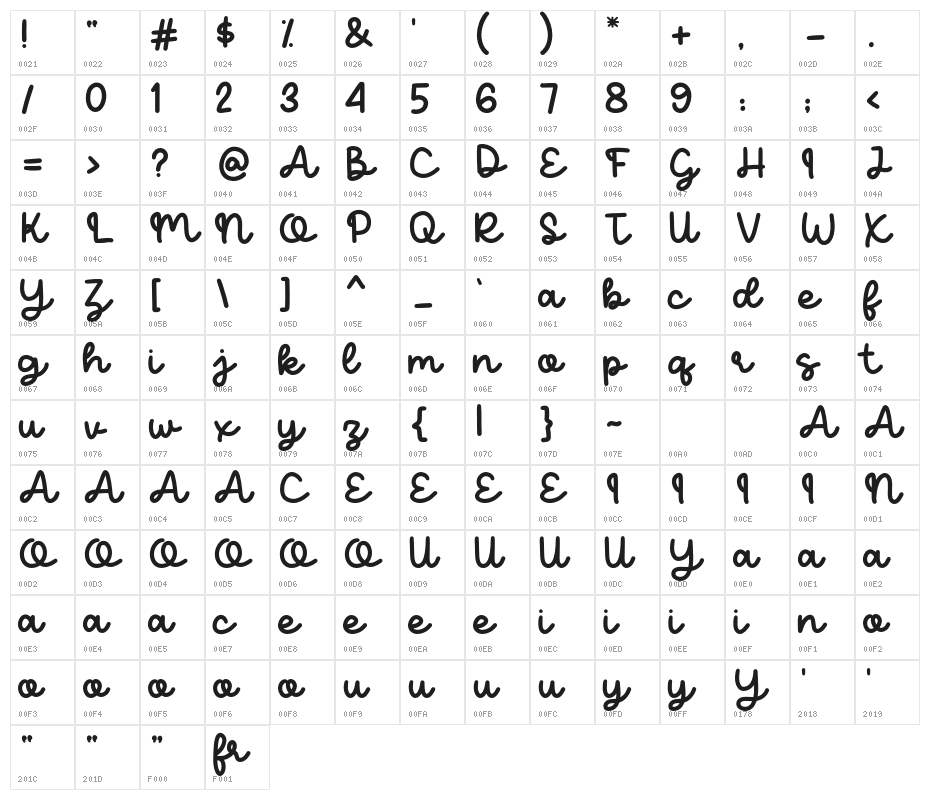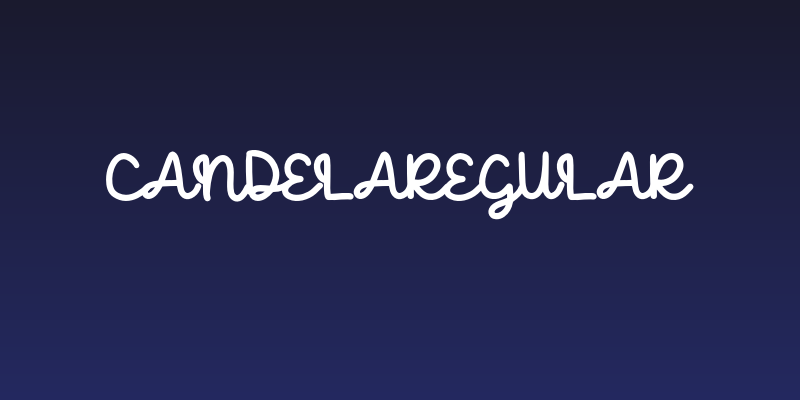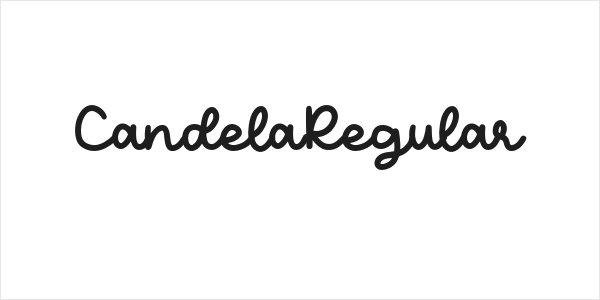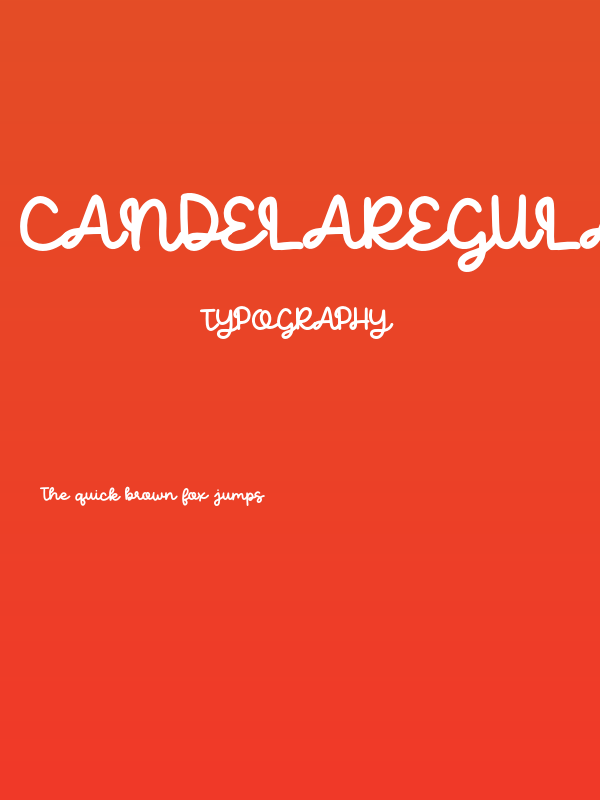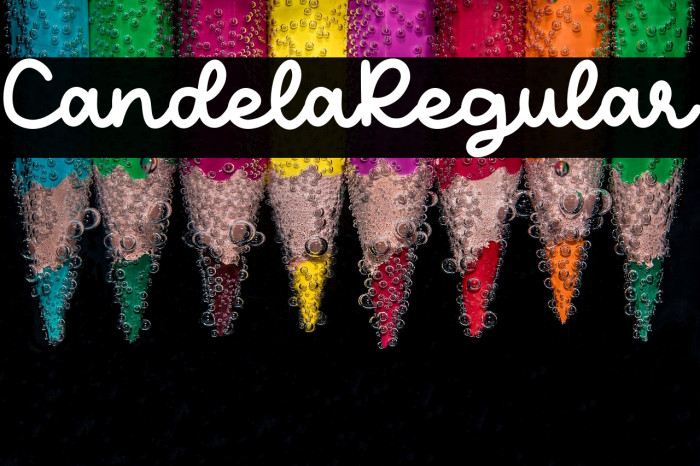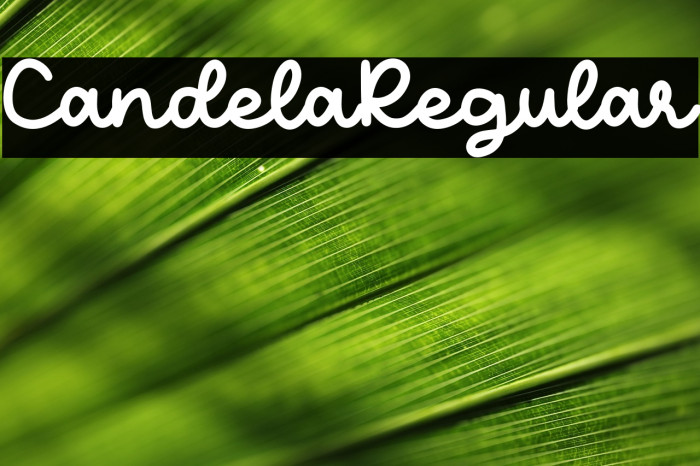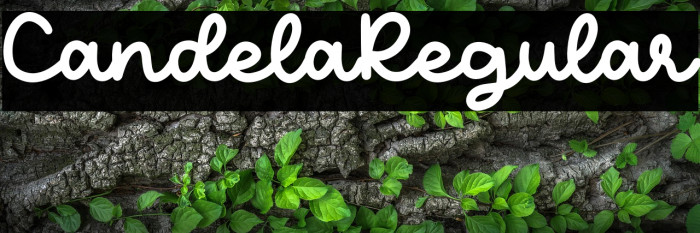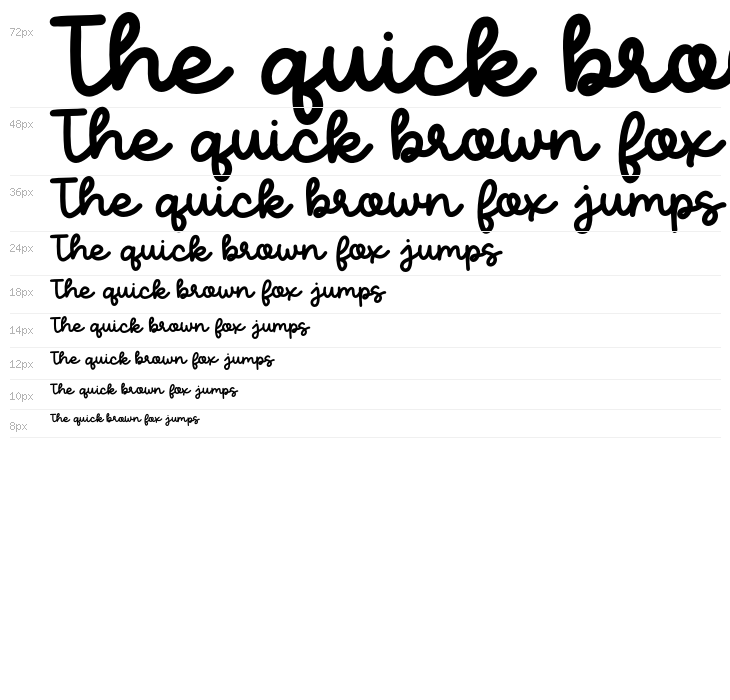
CandelaRegular Font
CandelaRegular Description
This font features a playful and energetic script style, characterized by its bold, flowing strokes and rounded edges. The letters are interconnected, giving it a handwritten appearance that is both casual and expressive. The uppercase letters maintain a consistent height, while the lowercase letters exhibit a slight variation in size, adding to the dynamic feel. The numerals are bold and easily legible, complementing the overall style. Special characters are included, maintaining the same lively and cohesive design. This font is ideal for projects that require a personal touch or a sense of fun and creativity.
| Overall Style | Playful, Casual, Handwritten |
| Proposed Projects | Greeting cards, invitations, branding for creative businesses, social media graphics, and playful packaging designs. |